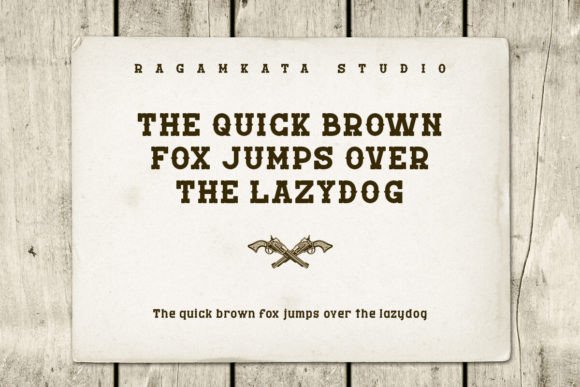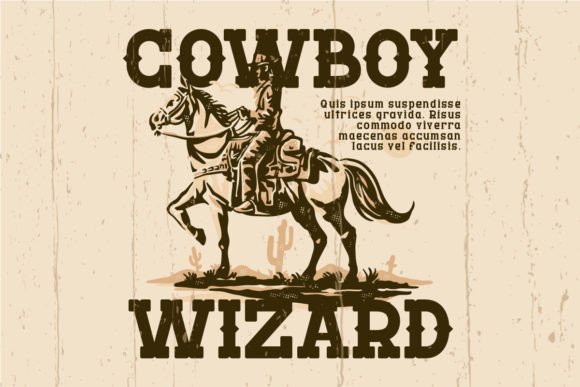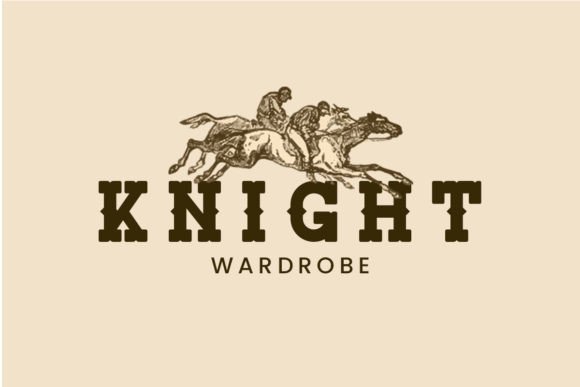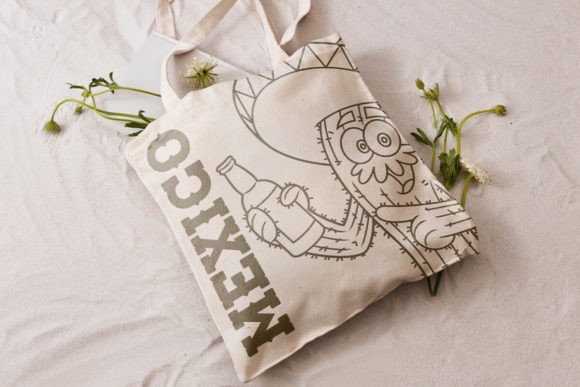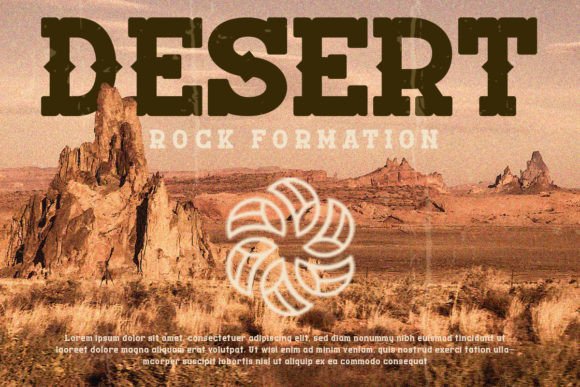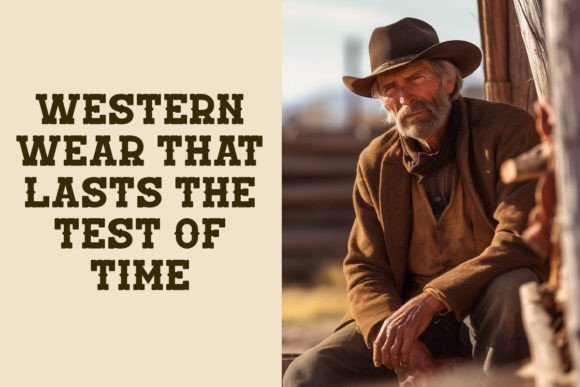
Introduction to Prairie Wagon Font
Have you ever been working on a creative project, pouring your heart and soul into it, only to realize that the perfect font is missing? The words aren’t flowing as smoothly as you’d like, and the overall design feels incomplete. This is where the Prairie Wagon Font comes in – a game-changing design resource that can elevate your project to the next level.
With its unique blend of classic Western serifs and modern touches, the Prairie Wagon Font is the perfect addition to any high-quality design. Its rounded edges and bold structure give it a sense of rugged elegance, reminiscent of the adventurous spirit of the American frontier. Whether you’re working on a free download or a paid project, this font is sure to make a lasting impression.
Key Features of Prairie Wagon Font
- Unique, hand-drawn design with a transparent background, ideal for layering and customization
- Large character set with a wide range of glyphs and symbols, including international characters and punctuation marks
- Perfect for use in various design applications, including logos, branding, and creative projects
Honest Review: Prairie Wagon Font
I recently stumbled upon the Prairie Wagon Font, and I must say it’s been a great addition to my design resource library. This font is perfect for creative projects that require a vintage or rustic feel.
- ✨ High-quality typography with a clear and consistent design aesthetic.
- ✨ Easy to read and understand, even on small screens.
One of the standout features of the Prairie Wagon Font is its transparent background, which makes it easy to overlay on top of other design elements. This feature is particularly useful for designers working on creative projects that require a high level of customization.
- ⚠️ Limited character set, which may not be suitable for extended text blocks.
Overall, I’m impressed with the Prairie Wagon Font and would recommend it to designers working on creative projects that require a unique and vintage aesthetic. While it may have some limitations, it’s a valuable resource that can add a lot of character to your designs.
Tips for Getting the Most Out of Prairie Wagon Font
The Prairie Wagon Font is perfect for a variety of creative projects, including:
- Brand identities
- Photography captions
Alternatives to Prairie Wagon Font
Fontin is a modern sans-serif font ideal for creative projects requiring a clean, high-quality design. It features a transparent background, making it suitable for use on any background color. Fontin is a great alternative to Prairie Wagon Font for designers who want a more minimalist look.
Playfair Display is a luxurious script font perfect for adding an elegant touch to any design. It’s a great choice for high-end creative projects, such as magazine covers or wedding invitations. While it lacks the rustic feel of Prairie Wagon Font, Playfair Display offers a sophisticated alternative for designers seeking a more refined look.
Rockwell
Rockwell is a classic serif font suitable for a wide range of design projects. Its sturdy feel makes it an excellent choice for body text, while its high-quality design makes it perfect for use as a headline font. Rockwell offers a more traditional look compared to Prairie Wagon Font, making it an attractive alternative for designers who want a timeless feel.
Great Vibes is a beautiful script font that exudes a sense of freedom and adventure. Its playful feel makes it perfect for creative projects that require a carefree, bohemian vibe. While it lacks the ruggedness of Prairie Wagon Font, Great Vibes offers a unique alternative for designers seeking a more relaxed, organic look.